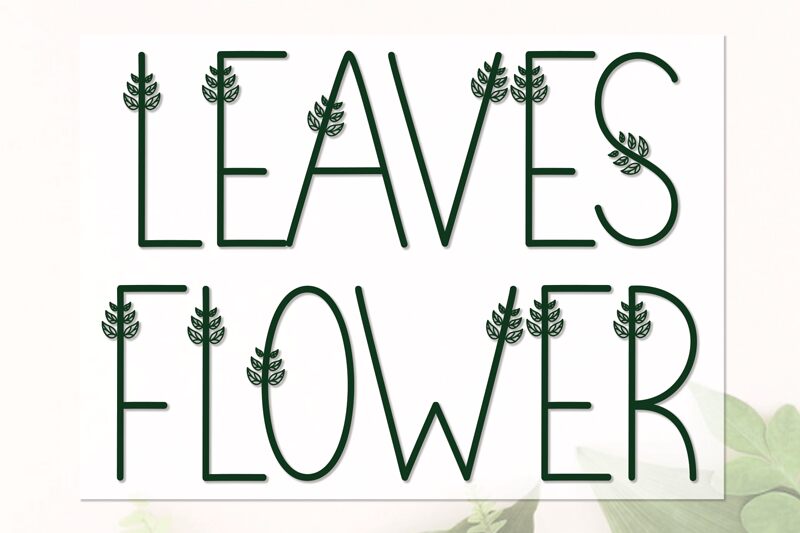
Leaves Flower
Leaves Flower, crafted by Scratchones, is a font that blooms with creativity. Its decorative style unfurls with botanical embellishments, turning each letter into a unique piece of art. The elegant strokes and floral motifs intertwine to evoke the essence of a garden in typography form. This display font is not only a feast for the eyes but also versatile in its use.
Perfect for projects that require an organic touch or whimsical flair, Leaves Flower can transform wedding invitations, boutique branding, and editorial designs into enchanting visuals. Its distinct character ensures that any message stands out with natural elegance and bespoke charm.